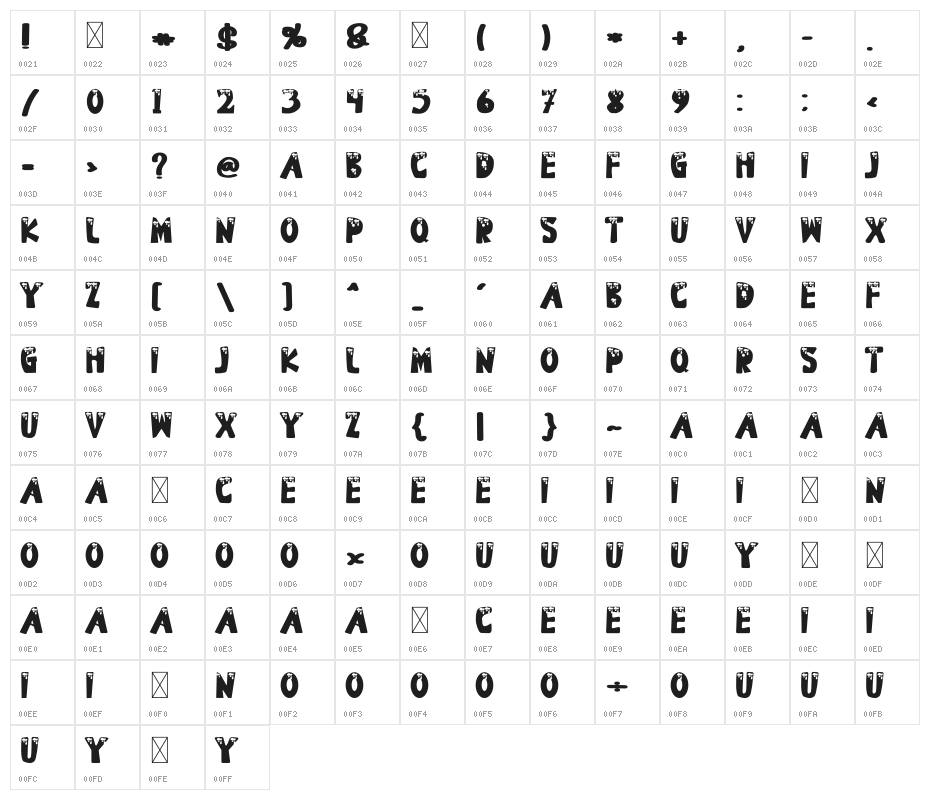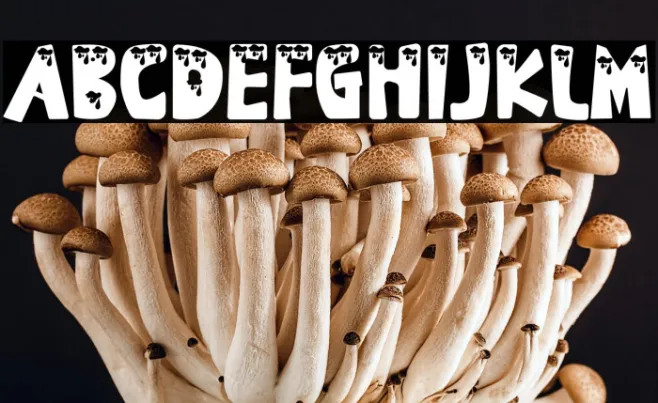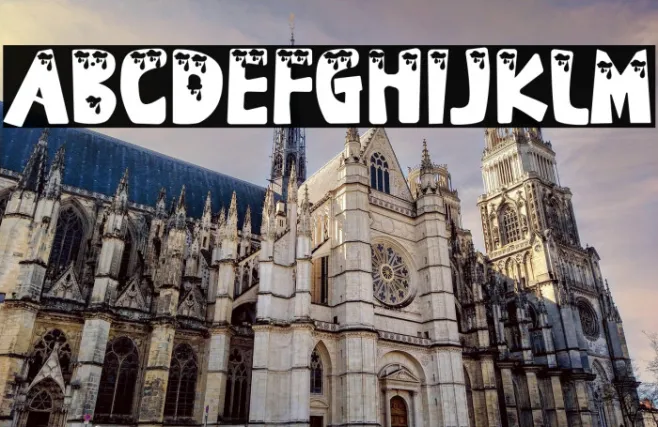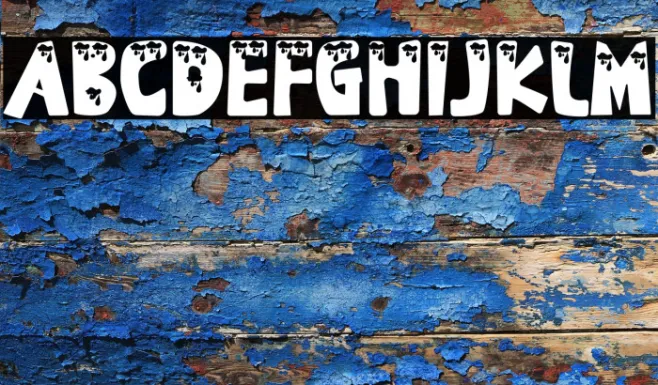
Ice Cube Font
Ice Cube Description
This playful and bold font features a unique design where each character appears to be covered in snow or ice, giving it a frosty, winter-themed appearance. The letters are thick and rounded, with a whimsical touch that makes them stand out. The uppercase and lowercase letters maintain a consistent style, with the icy embellishments adding a decorative element. Numbers and special characters are also designed with the same icy effect, ensuring a cohesive look across all text. This font is perfect for creating eye-catching designs that require a fun and festive vibe.
| Proposed Projects | Ideal for holiday cards, winter event posters, children's book covers, and festive branding. |